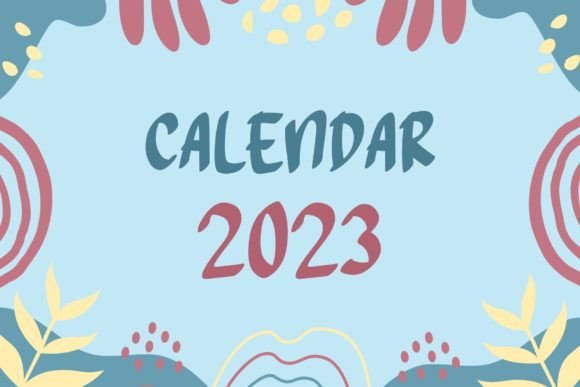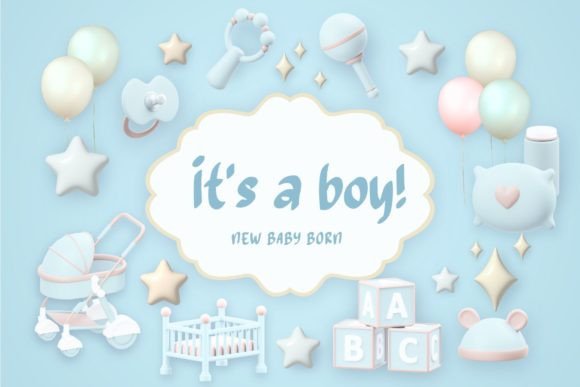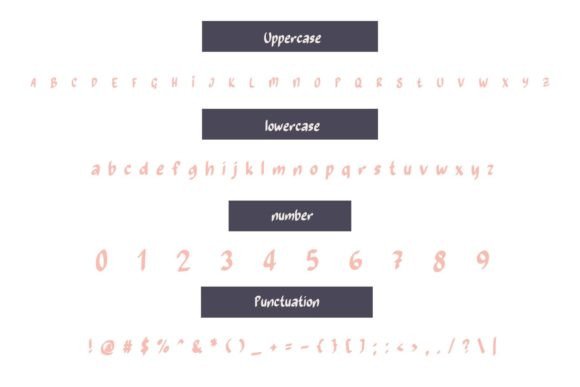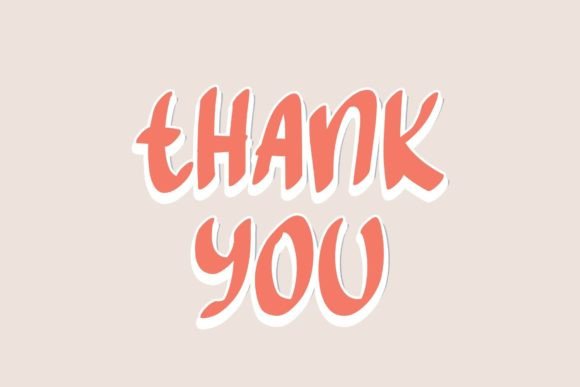
Enter the Amazing Tuesday Font, a delightful handwritten font that embodies playfulness and authenticity. This charming font is the perfect addition to any project, from blog posts and logos to branding and invitations. Whether you’re a seasoned designer or just starting out, the Amazing Tuesday Font is a valuable tool in your creative arsenal, helping you craft designs that truly stand out from the crowd.
Amazing Tuesday Font Key Features
- Font Family: Amazing Tuesday is a display font family with 6 styles: Regular, Italic, Bold, Bold Italic, Outline, and Fill.
- Character Set: Supports a wide range of languages, including Latin, Cyrillic, and Greek alphabets, with over 2000 glyphs and 1000 ligatures.
- Unique Characteristics: Amazing Tuesday features a playful, hand-drawn style with exaggerated letterforms and intricate details, making it perfect for adding a touch of whimsy to designs.
Designer Review: Amazing Tuesday Font
At first glance, the Amazing Tuesday Font has a lot to offer. ✨ The font’s playful and energetic vibe is perfect for adding some excitement to your designs. The bold and italic styles add a nice touch, making it versatile for various applications. The font’s unique characteristics, such as the subtle quirks in the letterforms, give it a handmade feel that’s hard to find in digital fonts.
However, there are some limitations to consider. ⚠️ The font’s readability can be affected by the lack of consistency in the letter spacing. In some cases, the letters may appear too condensed, making it difficult to read, especially at smaller font sizes. Additionally, the font’s support for certain languages is limited, which may be a concern for designers who work with multilingual clients.
- Font style: Playful, energetic, bold, italic
- Font characteristics: Handmade feel, unique quirks in letterforms
- Readability: Can be affected by letter spacing
- Language support: Limited
Overall, the Amazing Tuesday Font is a fun and creative choice for designers who want to add some personality to their work. While it has its limitations, the font’s unique characteristics and versatility make it a great addition to any design toolbox.
Amazing Tuesday Font is perfect for:
- Creating eye-catching social media graphics.
- Designing promotional materials for events or products.
- Adding a playful touch to presentations or reports.
For best results, use Amazing Tuesday Font in bold or italic styles to emphasize key points or add visual interest.